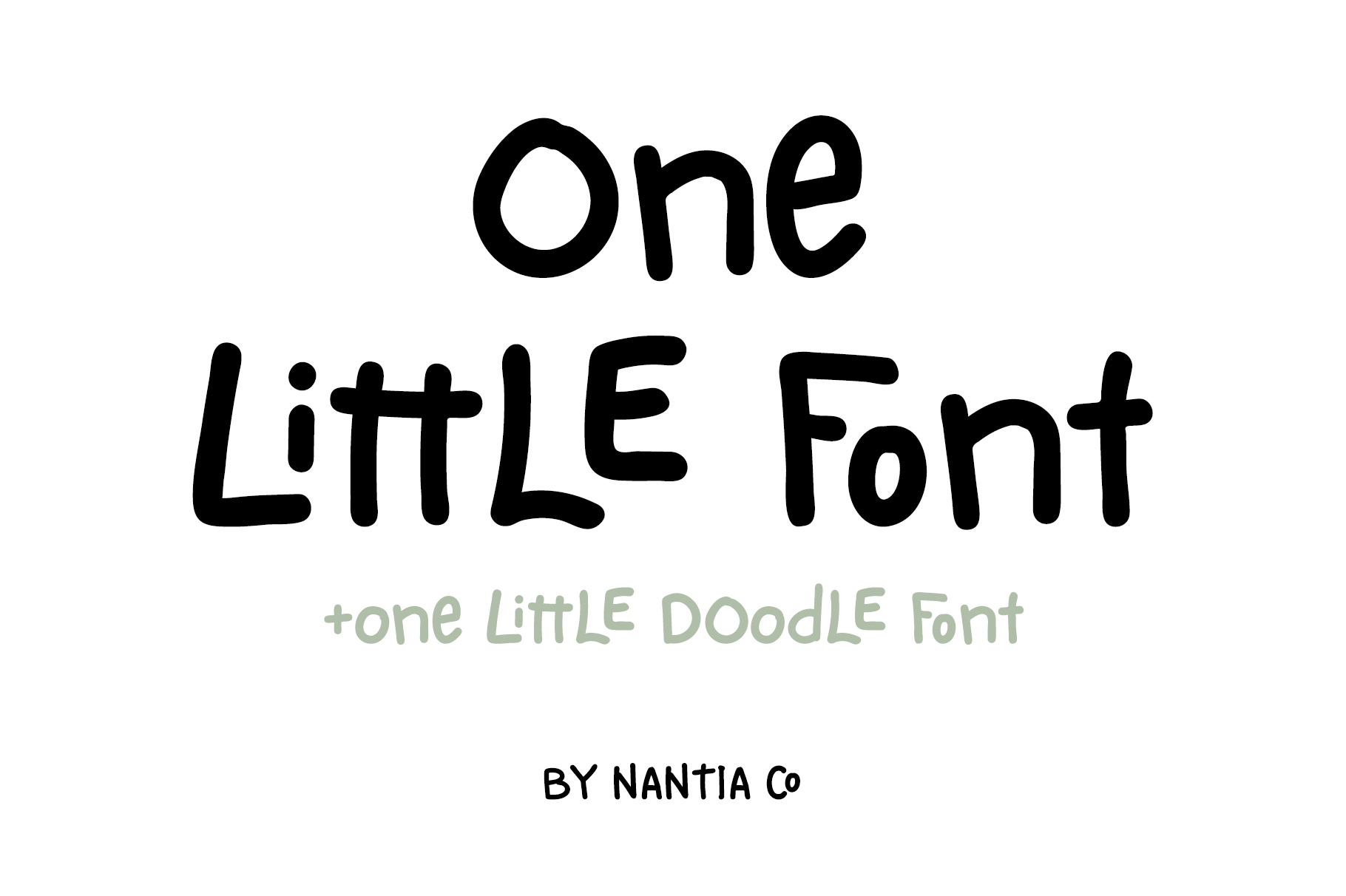
One Little Font doodle font
One Little Font - An adorable typeface
Let me introduce you to One Little Font!
This font is an adorable hand-made typeface with a lot of personality. With double letter ligatures and stylistic alternates, this typeface can be a mighty companion to your next graphic design project. From "hand-written" quotes to product packaging, merchandise, and branding projects, this font is so versatile that it can cover them all.